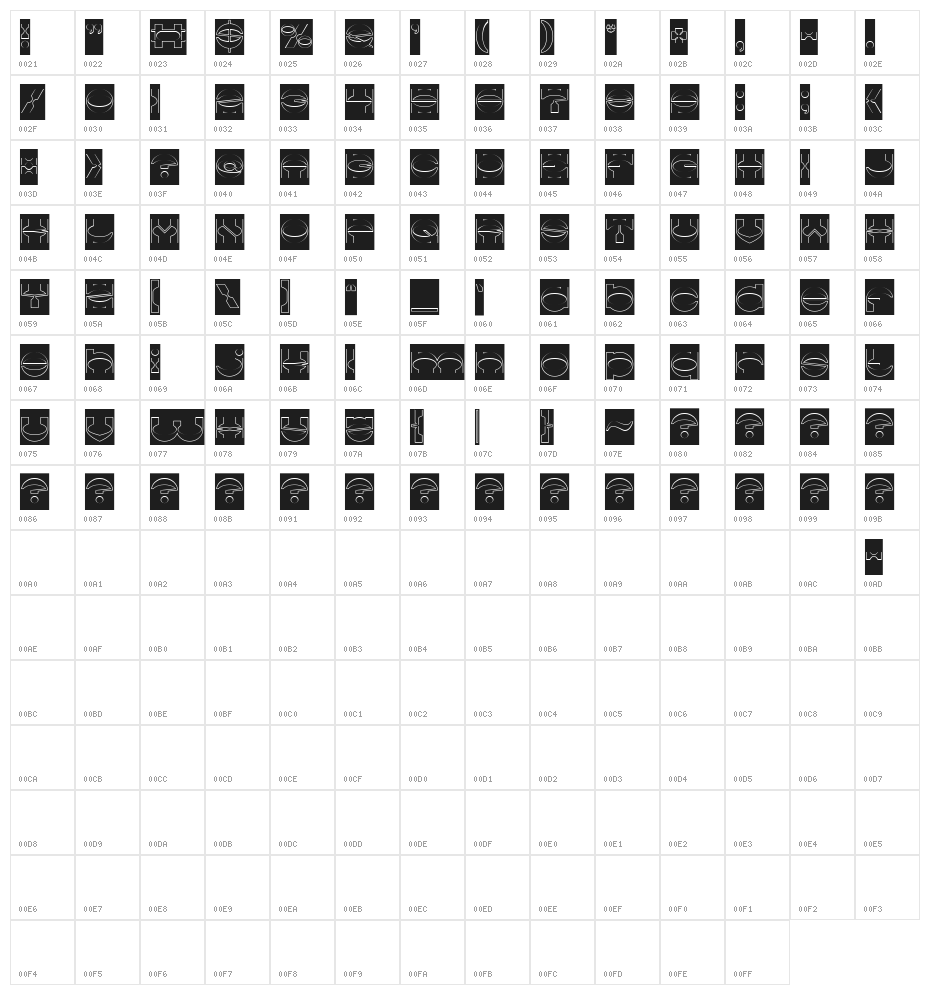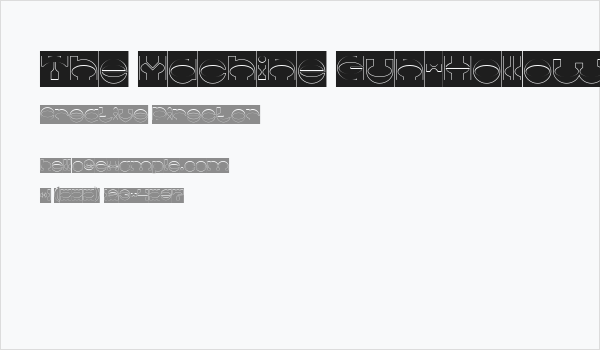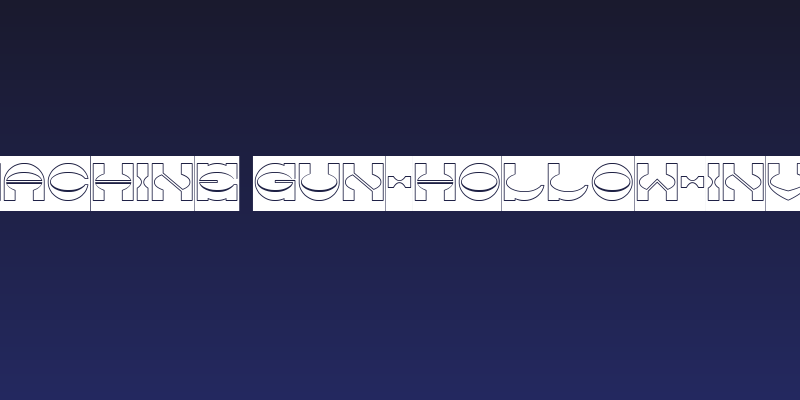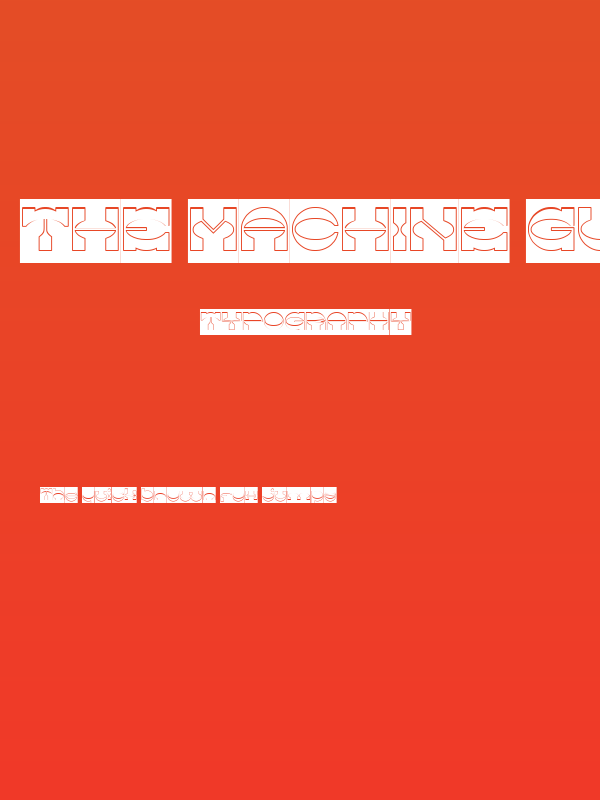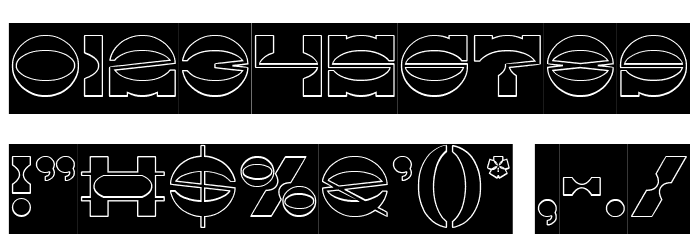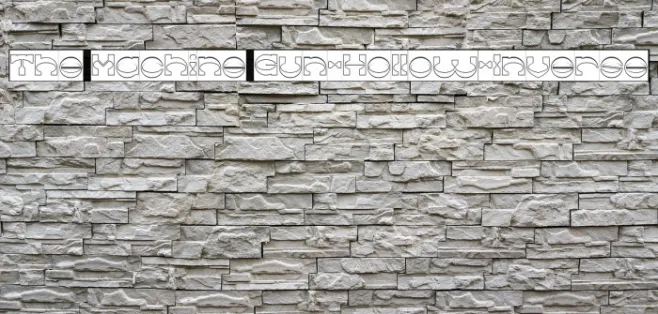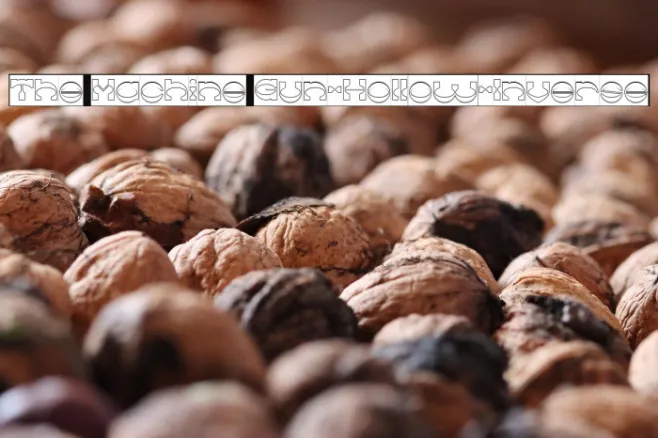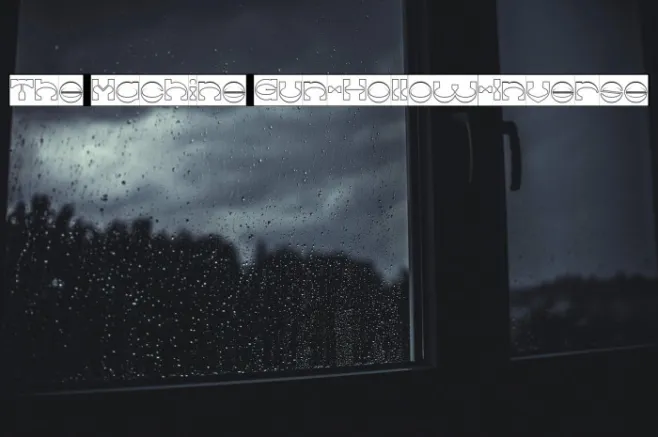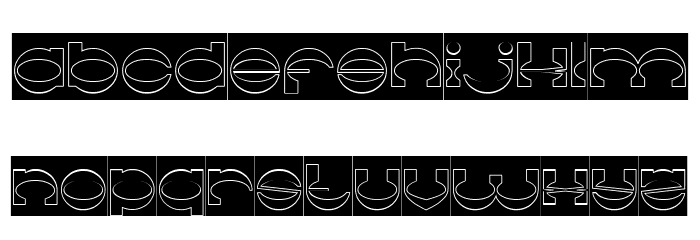
The Machine Gun-Hollow-Inverse Font
The Machine Gun-Hollow-Inverse Description
This font features a unique hollow design with an inverse style, creating a striking visual effect. The characters are bold and geometric, with a futuristic and industrial feel. Each letter is crafted with precision, showcasing a blend of sharp angles and smooth curves. The uppercase and lowercase letters maintain a consistent style, while the numbers and special characters complement the overall design. The hollow aspect of the font allows for creative layering and color usage, making it versatile for various design projects.
| Proposed Projects | Ideal for branding, posters, album covers, and digital artwork that require a modern and edgy look. |